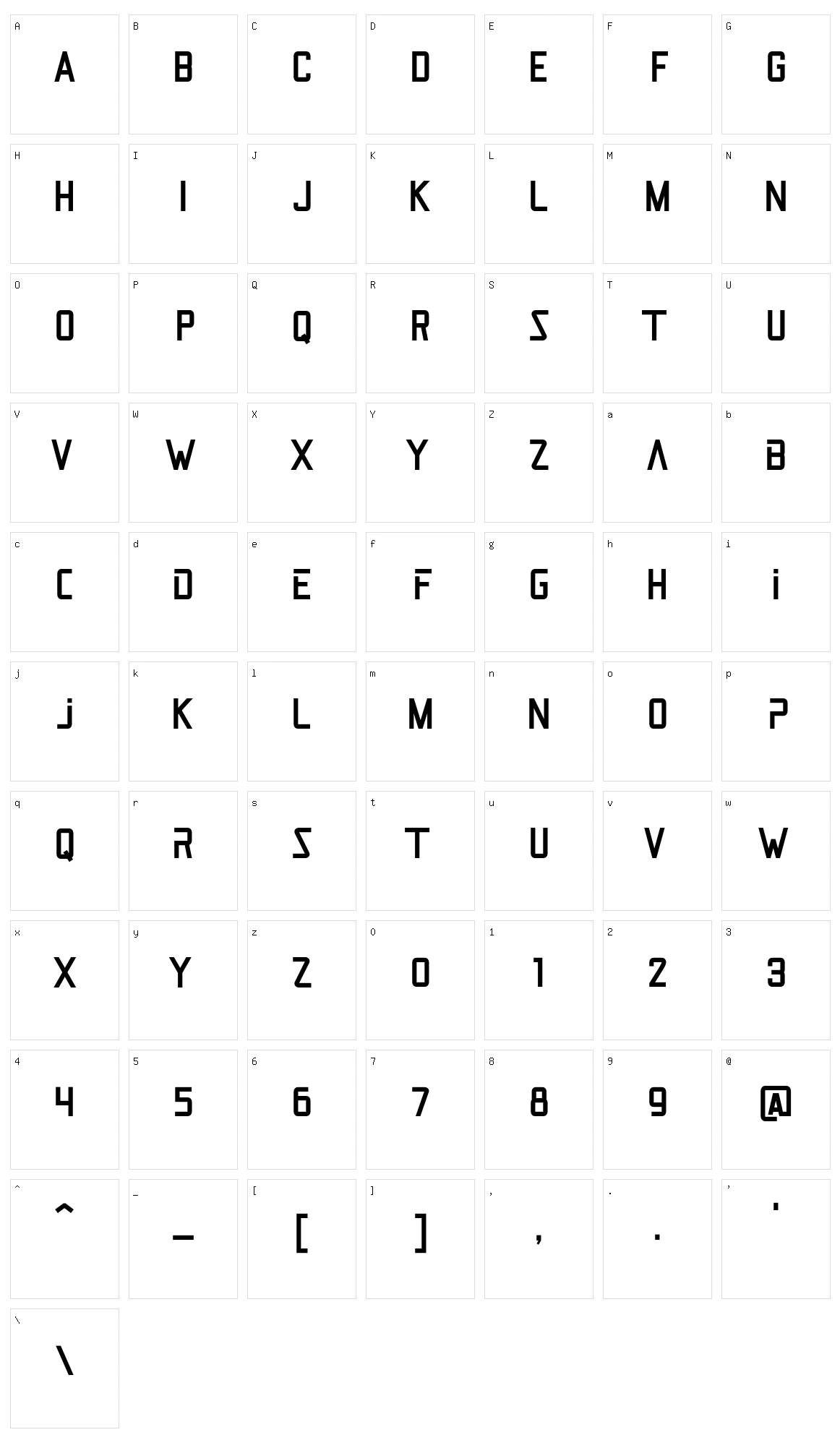
Jet Pilot
Designed by: madeDeduk
Jet Pilot is a modern minimalistic typeface. It has all caps and comes with 3 variations Light, Regular and Bold. This font suitable to create any project design.
Jet Pilot Character Set